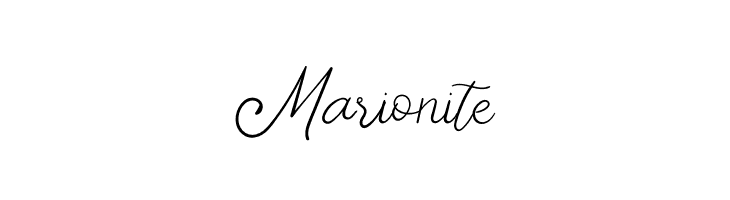
A graceful script font with flowing, interconnected letters and elegant flourishes.
An elegant and sophisticated script font with decorative flourishes.
A dynamic and flowing script font with elegant cursive strokes.
An elegant, cursive script font with fluid connections and dynamic contrast.
An elegant, flowing script font with graceful curves and sophisticated flair.
A flowing, cursive font with elegant, sweeping strokes and a handwritten appearance.
A playful and elegant script font with flowing, interconnected strokes.